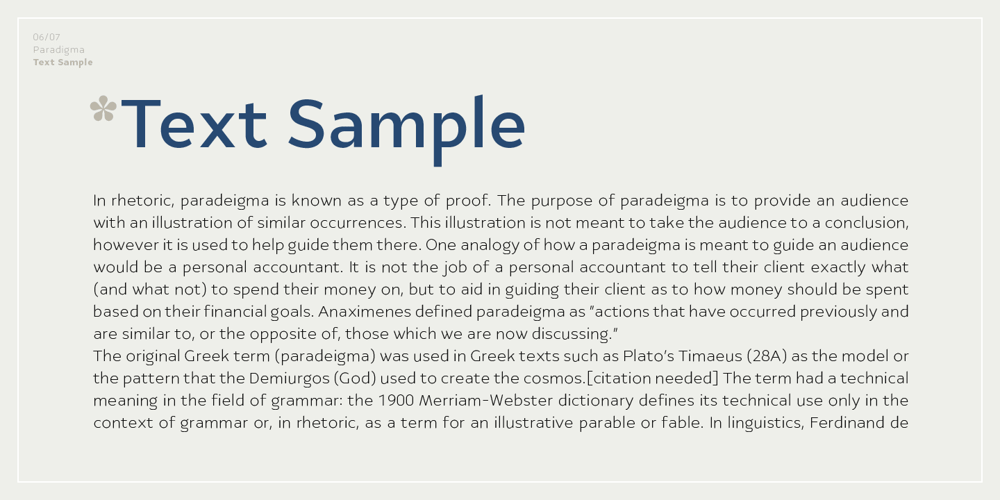
Ye Paradigma
Ye Paradigma font
Ye Paradigma Font Family was designed by Yinon Ezra and published by Yinon Ezra. Ye Paradigma contains 23 styles and family package options. Sans-serif, with clean and fresh Character. “Ye Paradigma” has been established in order to keep its forms as simple as possible – without losing the unique character of each letter, and without simplifying too much. The process was gradual, like the ripening of a sauce that leaves it to be reduced to strengthen flavors, so the letters ripened while reducing unnecessary details, until the taste became more concentrated and uniform. The result is a clean, fresh, remarkably useful 24 fonts typeface, with a clear and stable graphic language.